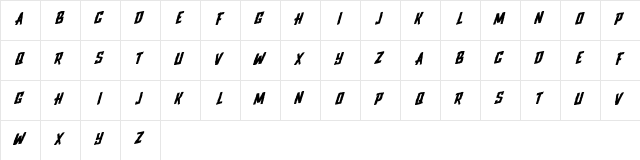
Upjohn Rough Regular
Design Context for Upjohn Rough Typeface
Upjohn Rough embraces imperfection — its rough, textured character adds raw authenticity to designs that want to feel lived-in and unconventional.
Suited to punk-influenced zines, underground music branding, streetwear, and raw, anti-corporate design.
Pro Tip: Pair Upjohn Rough with intentionally raw or lo-fi design elements. Fighting against it with overly polished surroundings will undermine its personality.